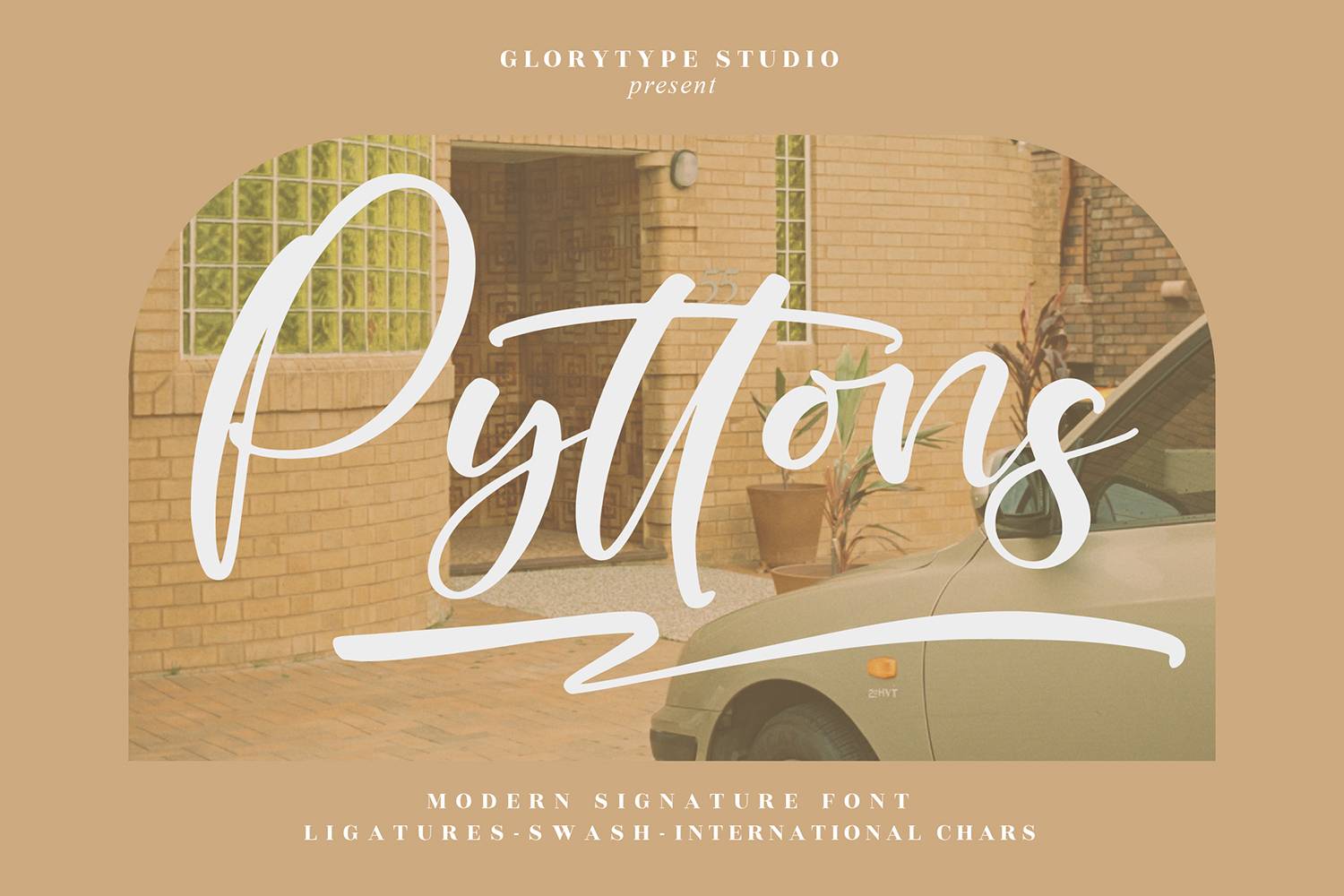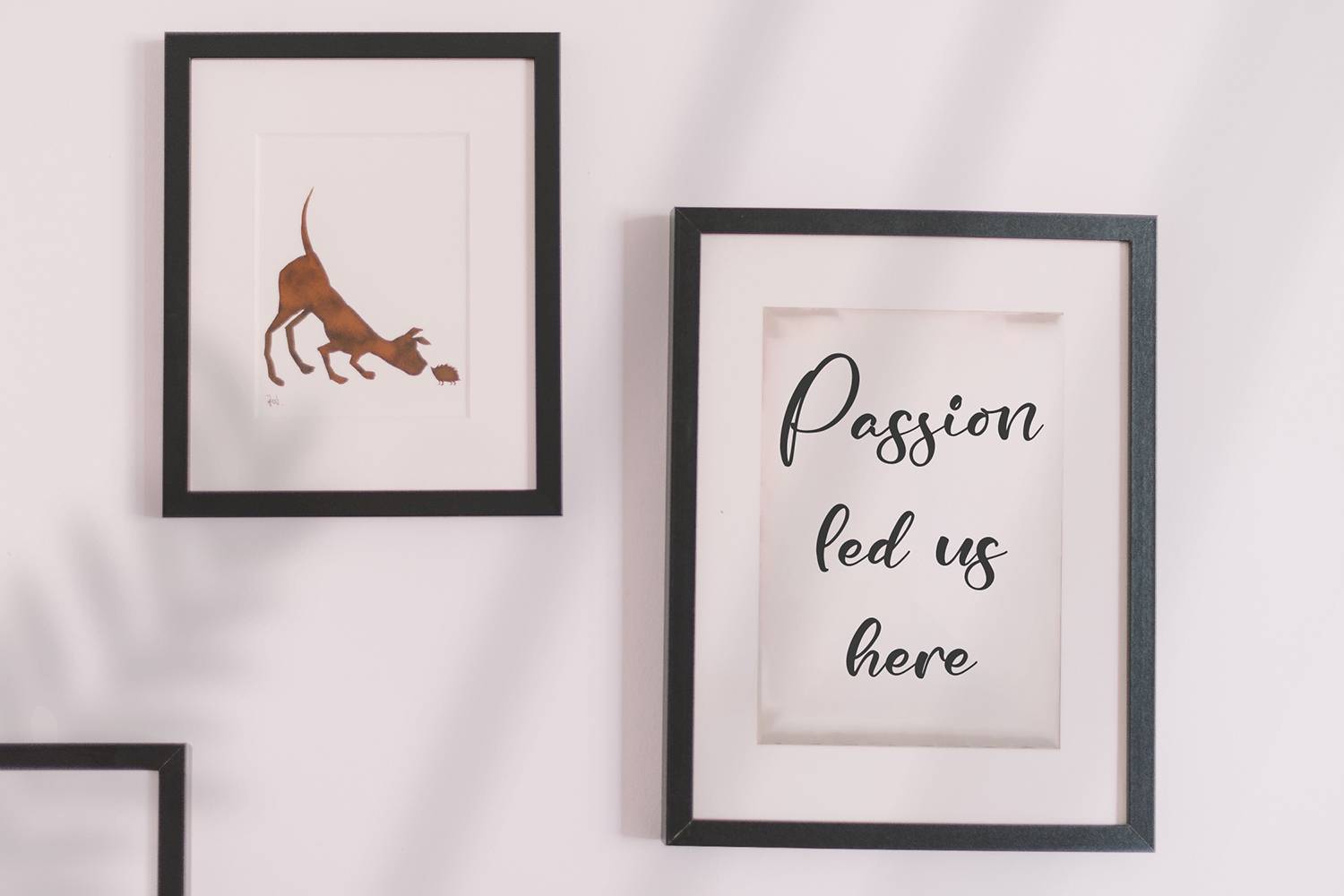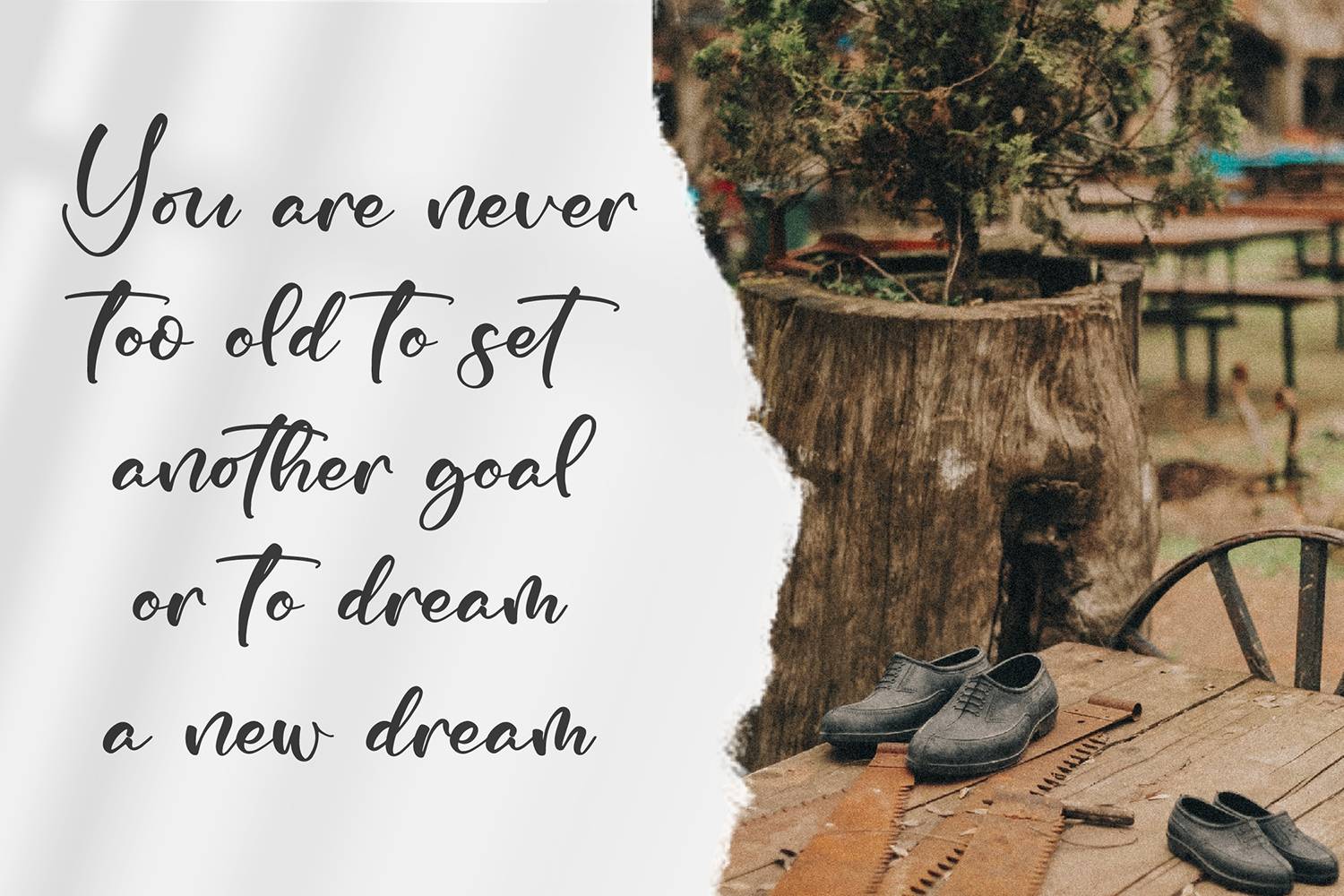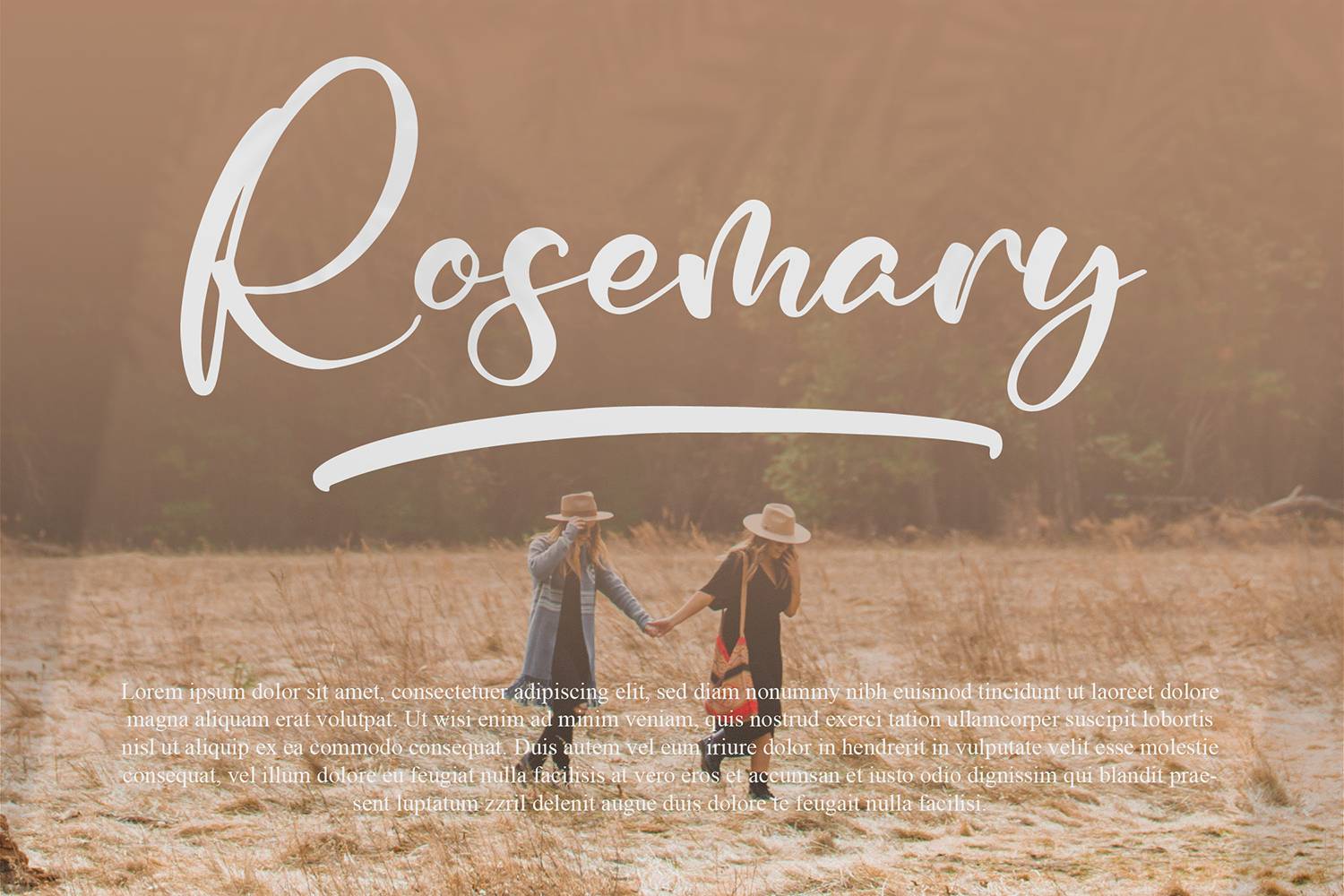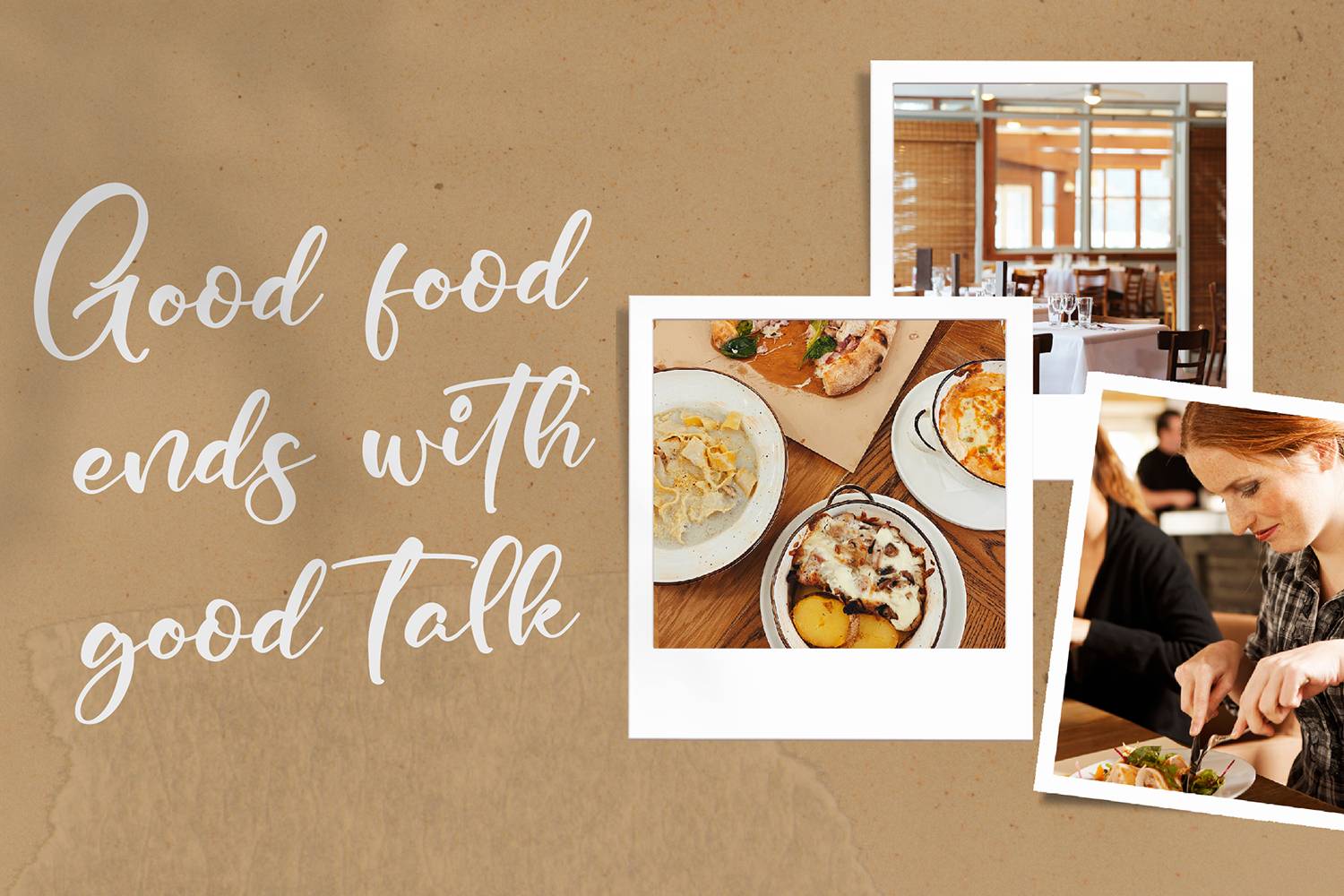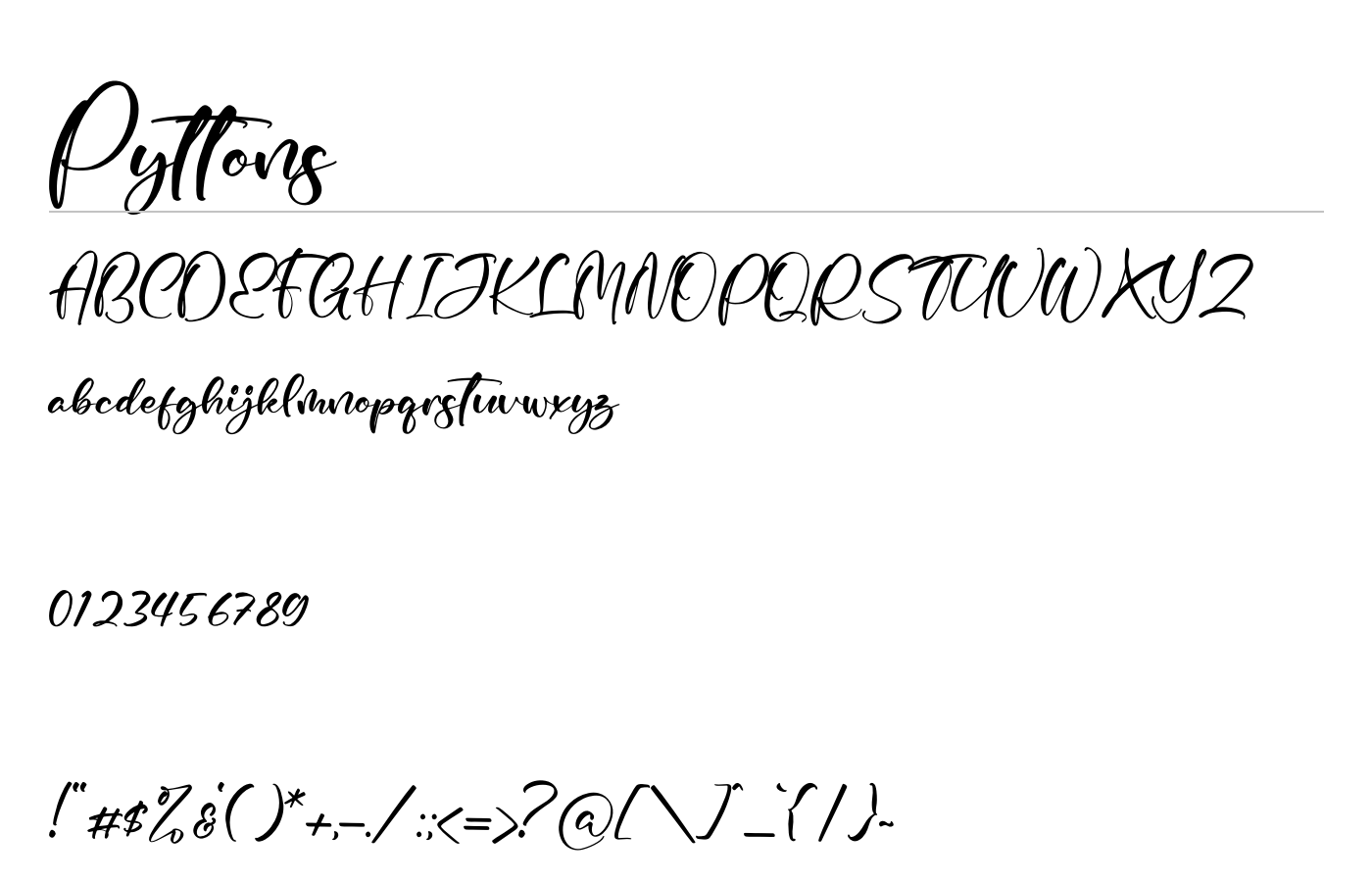
Pyttons is a lively and modern script font with a handwritten feel, featuring smooth, flowing strokes and moderate stroke contrast that adds a dynamic, artistic touch. Its tall x-height and slightly condensed letterforms give it a stylish elegance perfect for creative branding, invitations, and expressive headlines. This font works well where a personal, approachable, yet refined look is desired, making it ideal for fashion, lifestyle, and artistic projects.
Pyttons Font
About Pyttons Font